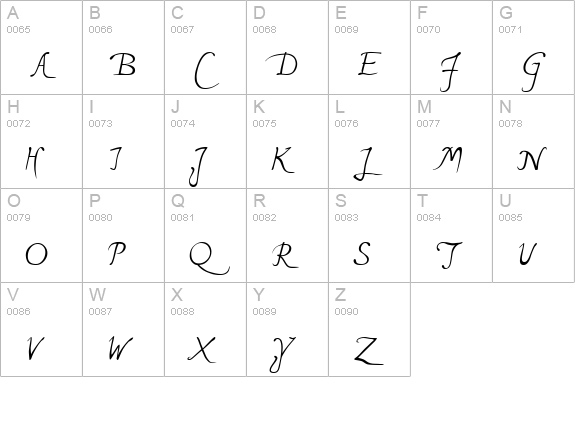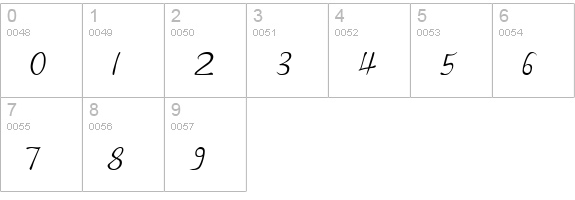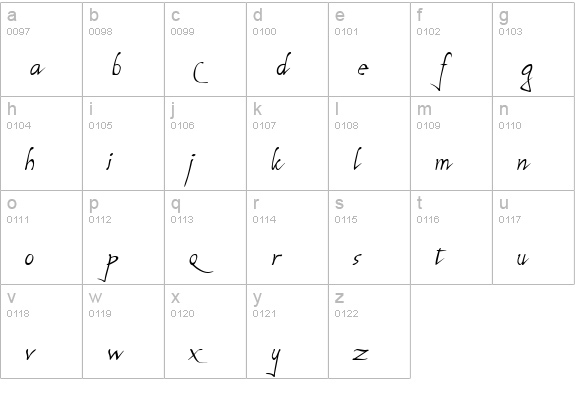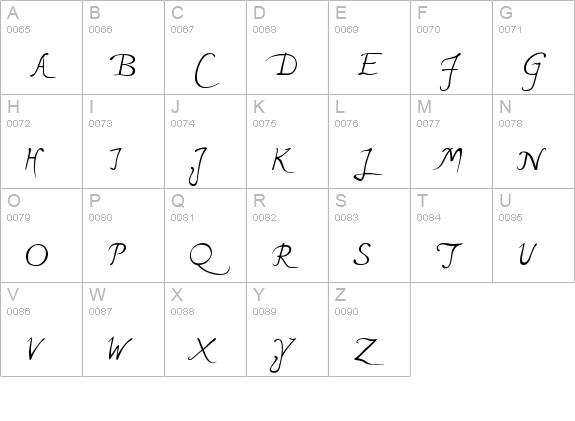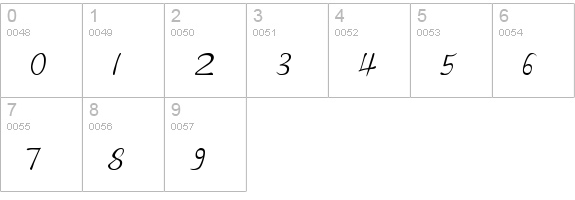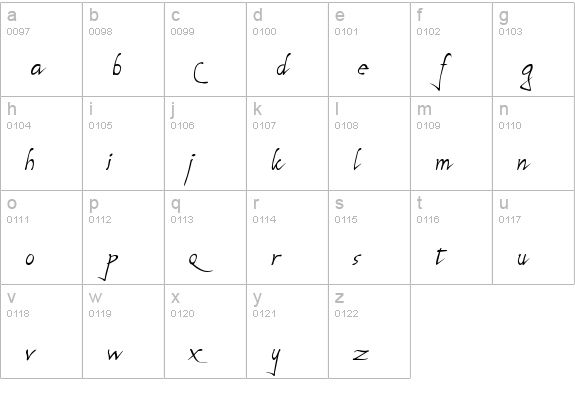
Michelangelo font is a timeless and elegant typeface that exudes sophistication and style. Its classical yet modern design features fluid lines and delicate serifs, making it perfect for a wide range of design projects. With its graceful curves and balanced proportions, Michelangelo font adds a touch of refinement to any text or graphic. Best of all, Michelangelo font is free to download at FontsMarket.com. This means you can easily access this high-quality typeface without any cost, making it a valuable addition to your font library. Whether you're creating invitations, logos, posters, or any other design, Michelangelo font will elevate your projects with its classic charm and versatility. Download Michelangelo font today and add a touch of timeless beauty to your designs.